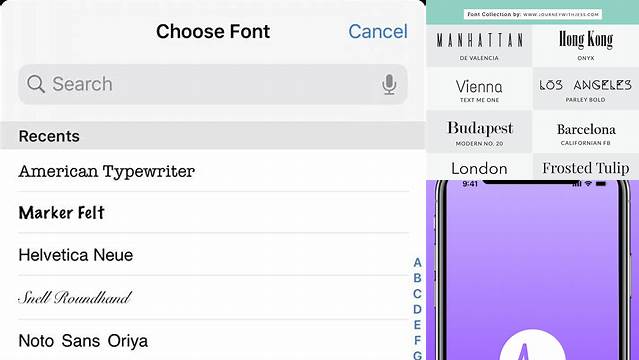
Different Fonts For IPhone Free: Customize Your Device Today!
Hey everyone! Want to spice up your iPhone and make it truly yours? You're in the right place! We're diving deep into different fonts for iPhone free, exploring how you can customize your device's look without spending a dime. Let's face it, the default font can get a little…blah. But with a few clever tricks and some awesome apps, you can inject some personality into your texts, emails, and everything else you do on your iPhone. So, grab your iPhones, and let's get started on this font-tastic journey!
The Beauty of Customization: Why Different Fonts Matter
Alright, guys, before we jump into the how-to's, let's talk about why you'd even bother with different fonts for iPhone free. It's not just about making your phone look pretty (though, let's be honest, that's a major perk!). Customizing your font can actually enhance your user experience in several ways. First off, it's about self-expression! Your iPhone is an extension of you, and choosing different fonts for iPhone free lets you reflect your personal style. Are you a sleek, modern minimalist? A playful, bubbly type? A classic, elegant soul? Your font choice can instantly communicate that. Secondly, readability! While the default font is perfectly functional, it might not be ideal for everyone. Maybe you have vision challenges, or perhaps you just prefer a font that's easier on the eyes. Different fonts for iPhone free can cater to these needs, ensuring you can comfortably read everything on your screen. Finally, it adds a touch of uniqueness. Think about it – everyone's iPhone pretty much looks the same out of the box. But when you start playing with different fonts for iPhone free, your phone becomes a statement piece. It's a subtle way to stand out from the crowd and show off your individuality. So, whether you're aiming for style, enhanced readability, or a dash of personality, exploring different fonts for iPhone free is a fantastic way to level up your iPhone game.
Beyond the Basics: The Impact of Font Choice on User Experience
Let's delve a little deeper into the impact of font choices. The type of font you select can significantly influence your overall user experience. It's not just about aesthetics; it's about creating a comfortable and intuitive interface. Imagine you're scrolling through your emails. A font that's too cramped or visually cluttered can quickly lead to eye strain and fatigue. On the other hand, a clear, well-spaced font can make reading a breeze, allowing you to effortlessly scan through your inbox. The same principle applies to browsing websites, reading articles, or even texting your friends. Different fonts for iPhone free provide you with a range of choices, from fonts designed for optimal readability to those that add a touch of artistic flair. Choosing the right font can significantly improve the clarity and comprehension of the content you're viewing. Furthermore, font choices can impact your mood and perception. A bold, assertive font might convey confidence and strength, while a softer, more rounded font might evoke a sense of warmth and friendliness. The subconscious associations we make with different fonts are fascinating, and by carefully selecting your font, you can subtly influence the way you and others perceive the information on your screen. Consider the context. For professional communication, a clean and straightforward font is usually best. For personal use, you have much more freedom to experiment with styles that reflect your personality and interests. Exploring different fonts for iPhone free means exploring a whole new world of digital self-expression, and it's a worthwhile journey for any iPhone user seeking to optimize their experience.
The iOS Font Landscape: Understanding the Default Options
Before we start hunting for different fonts for iPhone free, let's take a quick look at what iOS offers right out of the box. Apple has always prioritized user experience, and the default font, typically San Francisco, is a testament to that. It's a clean, legible font designed to look great at various sizes and on different screen resolutions. But within the standard settings, you're not entirely stuck with one option. iOS allows you to adjust the text size to make everything easier to read. You can find this in Settings > Display & Brightness > Text Size. This is a simple yet effective way to customize your viewing experience. You can also enable Bold Text, which makes all the text on your screen darker and more prominent. This can be particularly helpful for users with visual impairments. You can find this in Settings > Display & Brightness > Bold Text. However, Apple's built-in font customization options are limited. You can't directly change the font to something completely different. This is where third-party apps and other methods come into play, allowing you to access a wider range of different fonts for iPhone free and personalize your iPhone's look to a much greater degree. So, while the default options provide a solid foundation, they're just the beginning of your font customization journey.
Accessibility Features: Leveraging iOS for Font Customization
Beyond the basic text size and bold text options, iOS offers a range of accessibility features that can indirectly impact how fonts appear on your screen. These features are primarily designed to make iPhones more usable for individuals with visual impairments, but they can also be useful for anyone who wants to fine-tune their reading experience. One of the most powerful accessibility features is 'Display & Text Size' under Settings > Accessibility. Here, you'll find a variety of options, including 'Larger Text', which lets you increase the font size beyond the standard text size slider. This is great if you want to make everything even bigger and easier to read. You can also enable 'Reduce Transparency,' which can make text appear bolder and more distinct. This is especially helpful if you find text difficult to read against busy backgrounds. Another useful option is 'Increase Contrast,' which increases the contrast between text and the background, further improving readability. Furthermore, you can invert colors or apply color filters, which can significantly alter how fonts appear on your screen and potentially make text easier to read for individuals with certain visual conditions. While these features don't directly change the font itself, they provide a great deal of control over its appearance and can help you optimize your reading experience. By exploring these accessibility options, you can find ways to make the default fonts more comfortable to read and potentially reduce eye strain. Remember, the goal is to create an iPhone interface that works best for you, and these accessibility features are powerful tools for achieving that.
Third-Party Apps: Your Gateway to Diverse Fonts
Now, let's get to the fun part: different fonts for iPhone free through third-party apps! This is where you unlock the true potential of iPhone font customization. There are tons of apps out there that offer a wide range of fonts, from elegant serif fonts to playful, handwritten styles, and even quirky, modern designs. One popular method involves using apps that create custom keyboards. These keyboards often come with a selection of fonts you can use when typing in apps like Messages, WhatsApp, and Instagram. Keep in mind that these fonts may not apply to your entire iPhone interface; they typically work within the apps where you're using the custom keyboard. Another approach involves apps that allow you to create custom font profiles. These apps often let you preview your text in various fonts and then install them on your iPhone. However, the extent to which these font profiles affect the entire system can vary. Some might only work within certain apps, while others might have a broader impact. When choosing apps for different fonts for iPhone free, it's essential to read reviews and check the app's compatibility with your version of iOS. Also, be mindful of any permissions the app requests. Only install apps from trusted sources, and always review the app's privacy policy before granting any access. With the right apps, you can significantly expand your font library and start experimenting with different fonts for iPhone free that suit your style and needs. So, dive in and start exploring the exciting world of third-party font apps!
The Best Free Font Apps: A Curated List
To help you get started, here's a curated list of some of the best free font apps available for iPhone. Keep in mind that